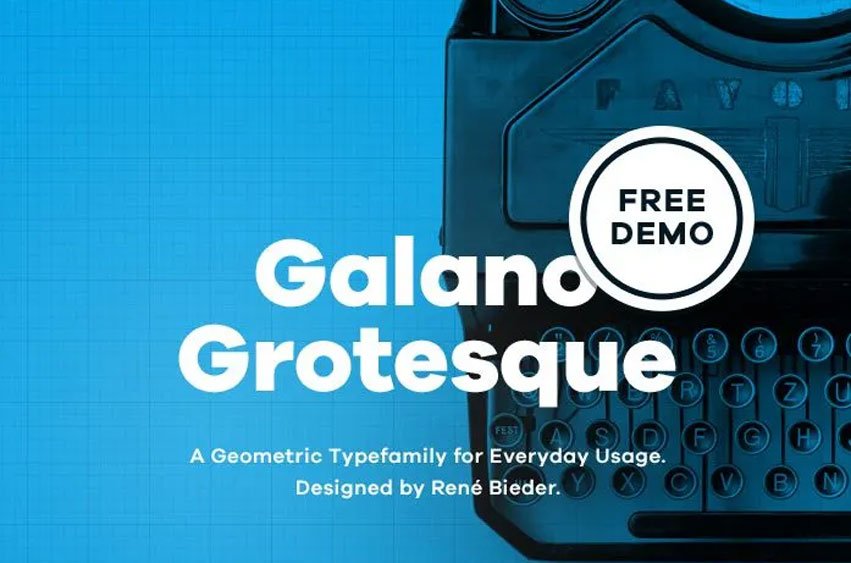
Galano Grotesque Font
Galano Grotesque Font family is a geometric sans. It has a modern streak because of the harmonization of width and height, especially in low case letters, to make reading more comfortable. The Galano Grotesque Font Family is a sans-serif typeface that wants to be universal – not just because it works great in headlines, short or long copy, but due to its discreet neutrality.
The Galano Grotesk Font Family contains 10 weights with matching italics and provides access to a generous suite of OpenType features. On top of pro- viding alternative databases, fractions, arrows, ligatures and many more